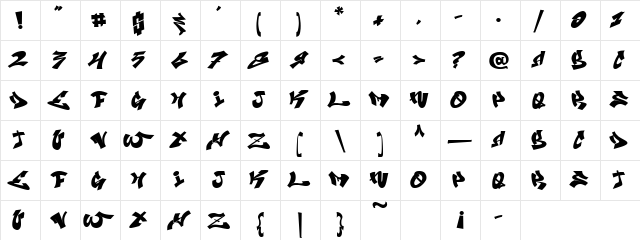
Amanzing Grafiti Regular
| Designer | Sikisalaktype |
Design Context for Amanzing Grafiti Typeface
Amanzing Grafiti is a composed and adaptable typeface that performs quietly and consistently across a wide range of design contexts.